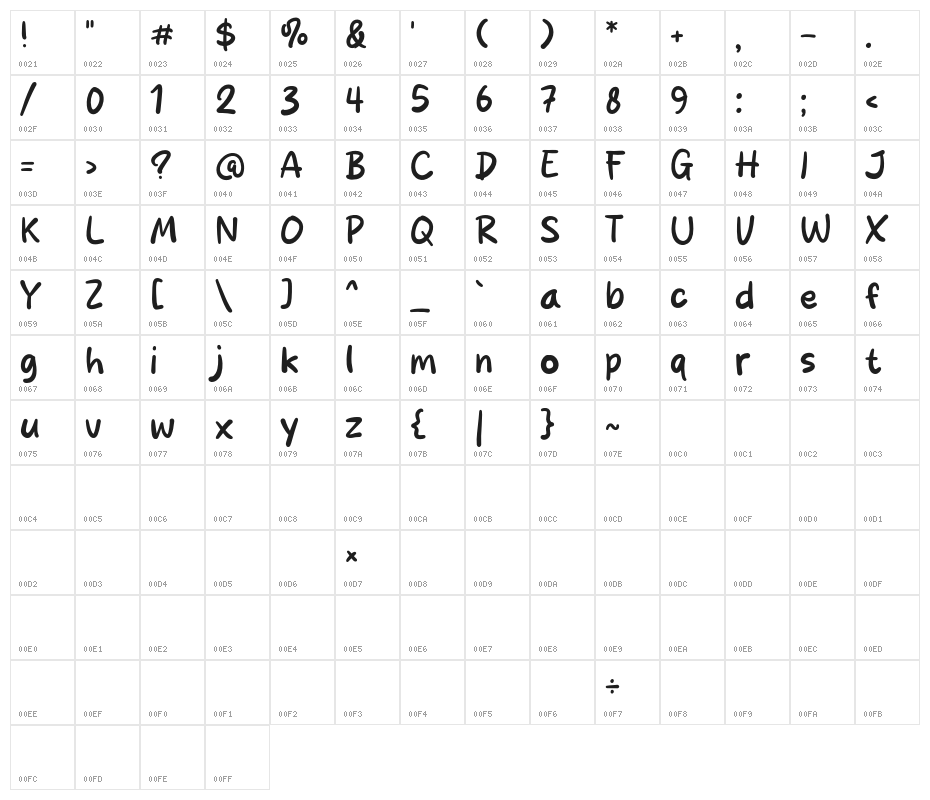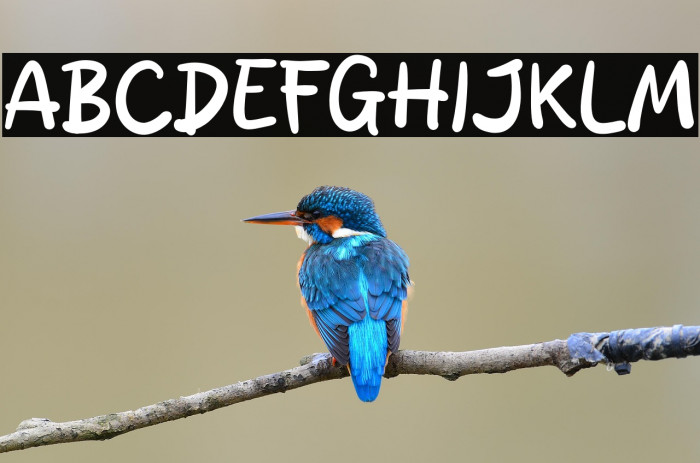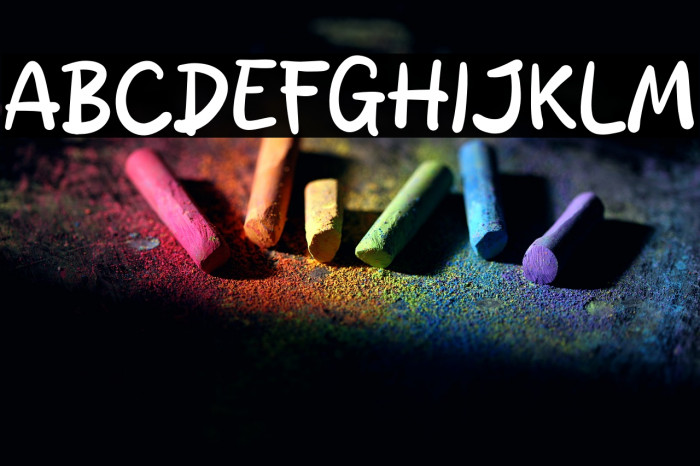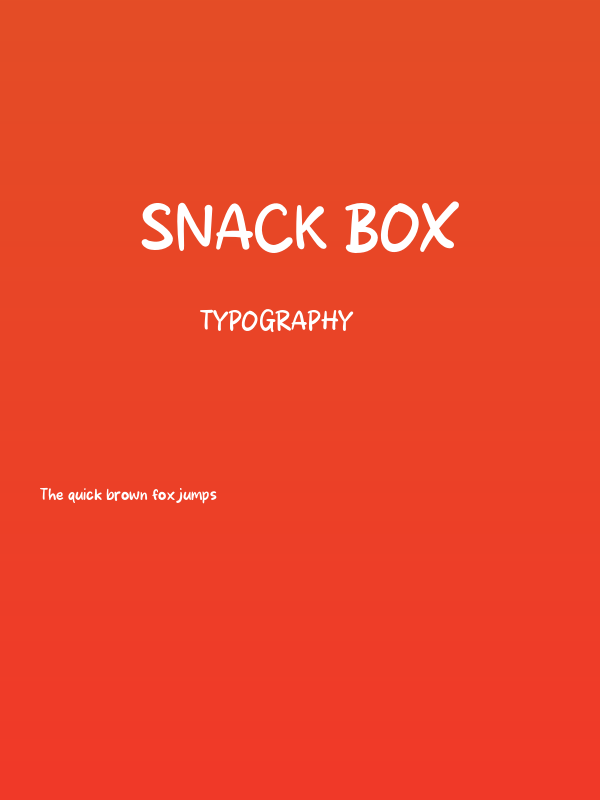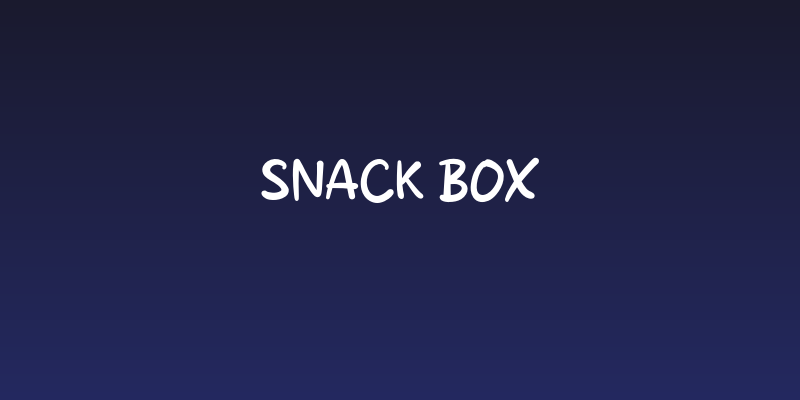
Snack Box Font
Snack Box Description
This font features a playful and casual handwritten style, characterized by its bold and rounded letterforms. The strokes are consistent in thickness, giving it a uniform appearance while maintaining a lively and informal vibe. The characters are slightly slanted, adding to the dynamic and energetic feel. The font includes a full set of uppercase and lowercase letters, numbers, and a variety of special characters, making it versatile for different uses. Its friendly and approachable design makes it suitable for projects that aim to convey warmth and creativity.
| Overall Style | Casual, Playful |
| Use Case | Headlines, Logos, Informal Text |
| Proposed Projects | Ideal for children's books, casual branding, greeting cards, and playful social media graphics. |